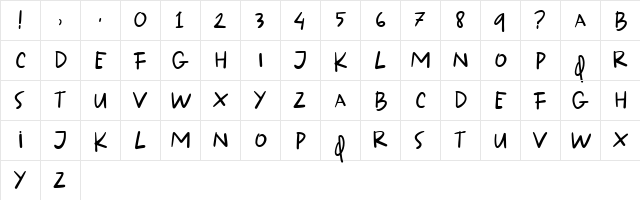
New Kids In The Hood Regular
| Foundry | Olivetype |
| Designer | AFS Olivetype |
Design Context for New Kids In The Hood Typeface
New Kids In The Hood trades formality for fun, with bouncy, characterful letterforms that bring warmth and energy to any project.
Font Pairing: Pairs well with a rounded or humanist sans for body copy, maintaining the friendly tone without relying on New Kids In The Hood to carry extended reading.
Pro Tip: Use New Kids In The Hood at larger display sizes where its expressive character can land. Pair with a clean, simple sans for body copy to maintain readability.